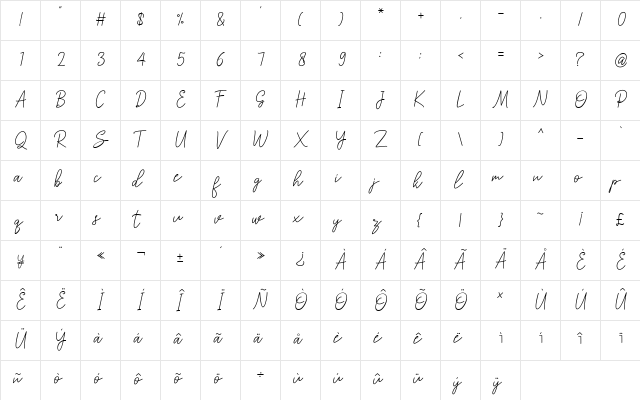
barista Regular
| Foundry | Cut Story / Ramadhana |
| Designer | Cut Story / Ramadhana |
Design Context for barista Typeface
barista is a composed and adaptable typeface that performs quietly and consistently across a wide range of design contexts.